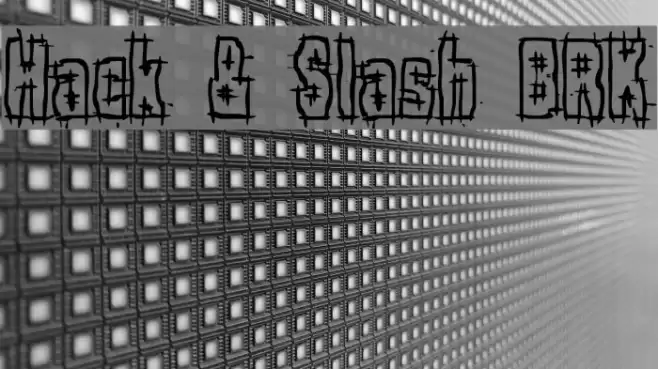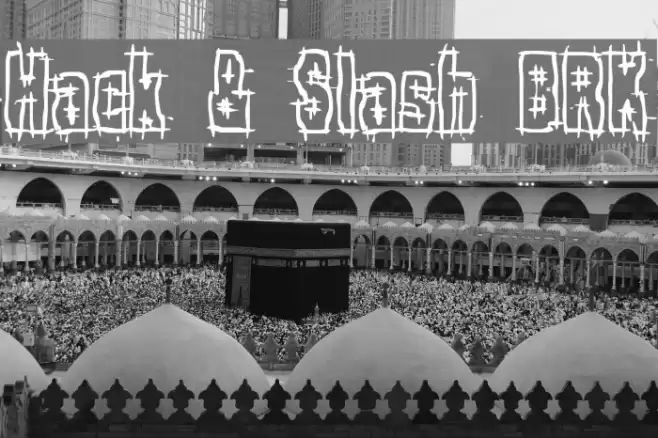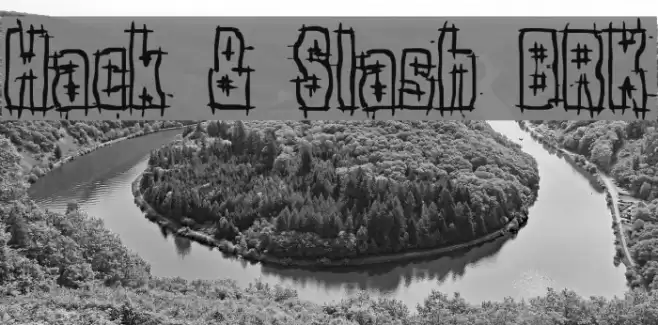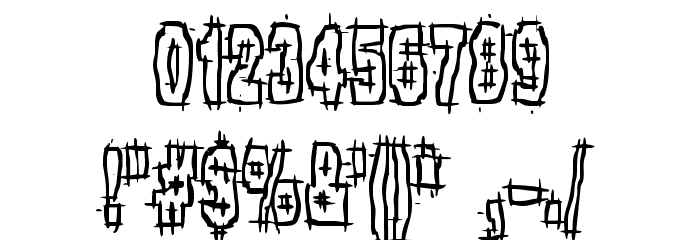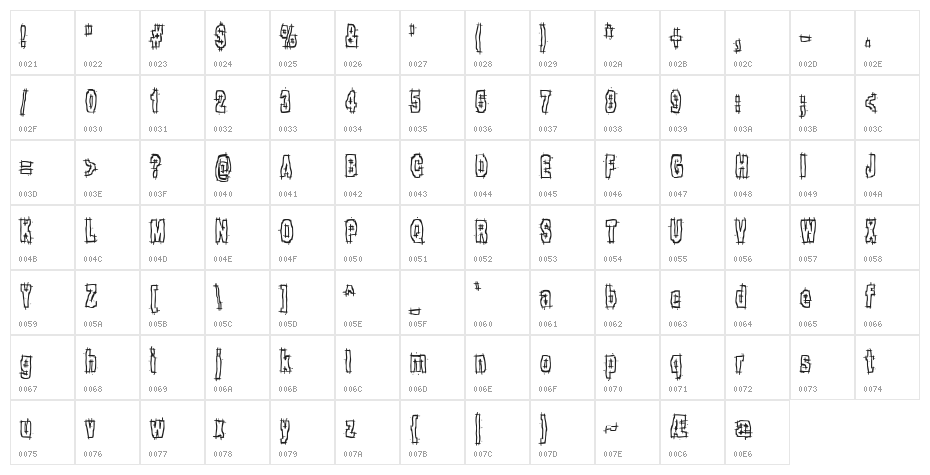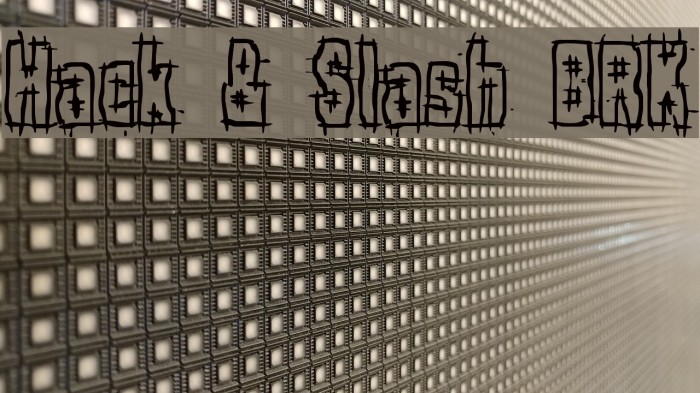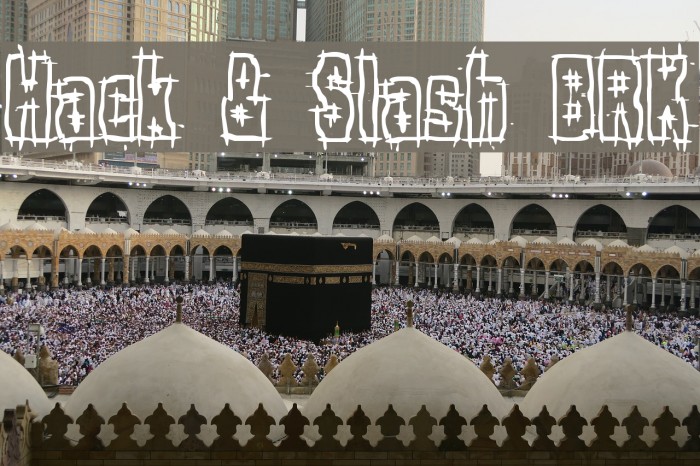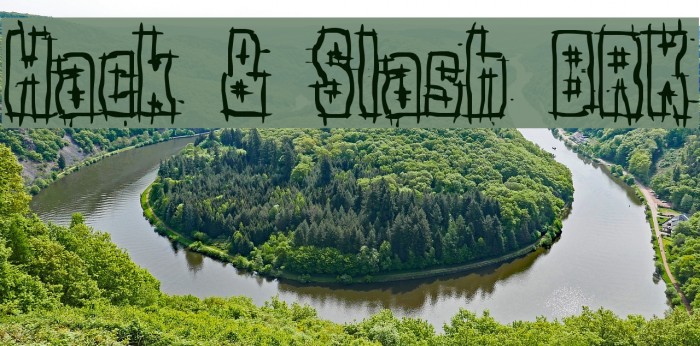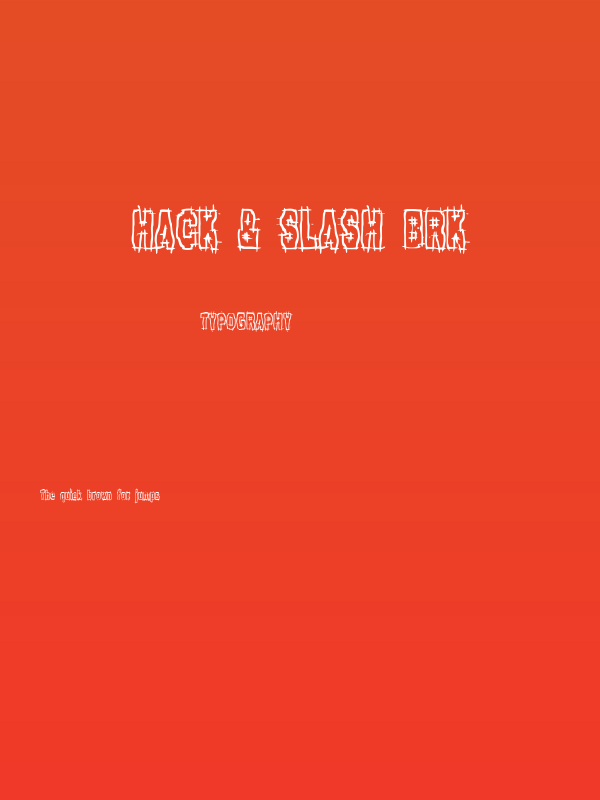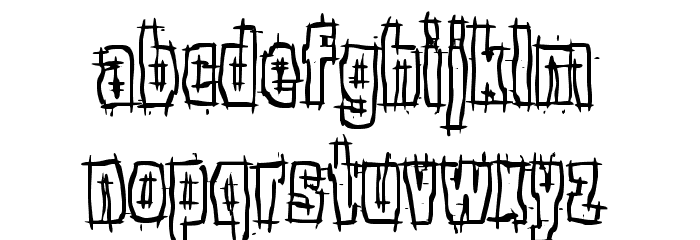
Hack & Slash BRK Font
Hack & Slash BRK Description
This font features a rugged, distressed style with sharp, jagged edges and a hand-drawn appearance. Each character is enclosed within a rough, uneven outline, giving it a chaotic and edgy look. The letters are bold and prominent, with a unique, almost graffiti-like aesthetic. The font's irregularities and imperfections add to its character, making it ideal for projects that require a raw, rebellious feel. The uppercase and lowercase letters maintain a consistent style, while the numbers and special characters follow the same design principles, ensuring a cohesive look across all text elements.
A rugged, distressed font with a chaotic, hand-drawn style from Outline fonts.
- Proposed Projects: Ideal for horror-themed designs, edgy posters, album covers, and rebellious branding.